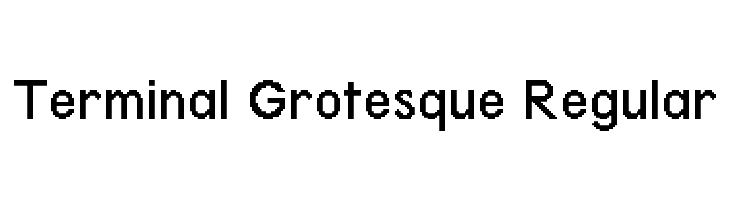
A bold, geometric font with a modern and dynamic style.
A bold, angular font with a futuristic and industrial design.
( Fonts by Kreative Korporation - www.kreativekorp.com )
An elegant italic font with smooth curves and a dynamic slant.
( Fonts by Kreative Korporation - www.kreativekorp.com )
A clean, modern sans-serif font with a geometric influence.
( Fonts by Kreative Korporation - www.kreativekorp.com )
A bold, modern typeface with clean lines and strong presence.
( Fonts by Goma Shin - Shintarou Nakayama www.geocities.jp/gomarice_font/ )
A bold, playful Western-style font with rounded, thick strokes and bulbous terminals.
( Fonts by Khrys Bosland )
A playful, decorative font with arrow-like serifs and rounded terminals.